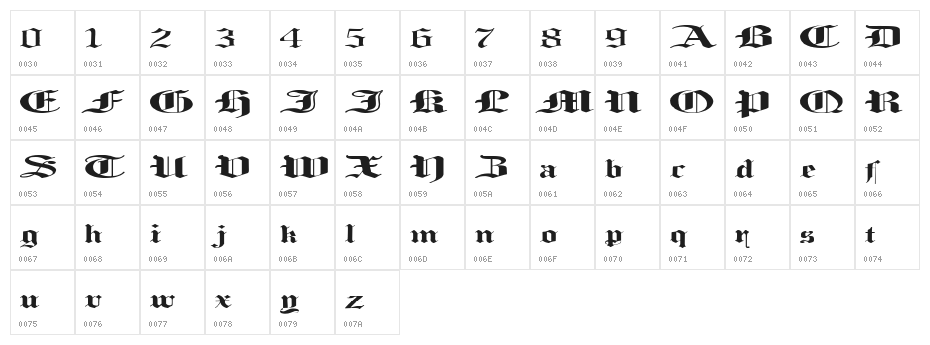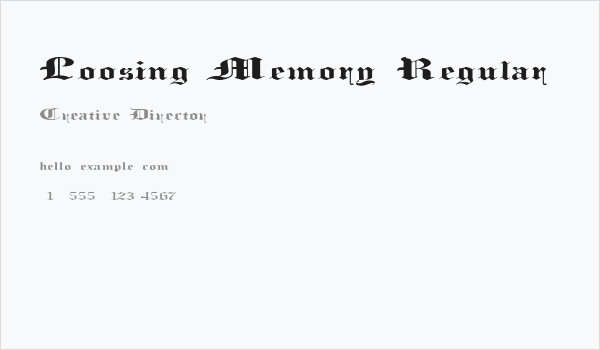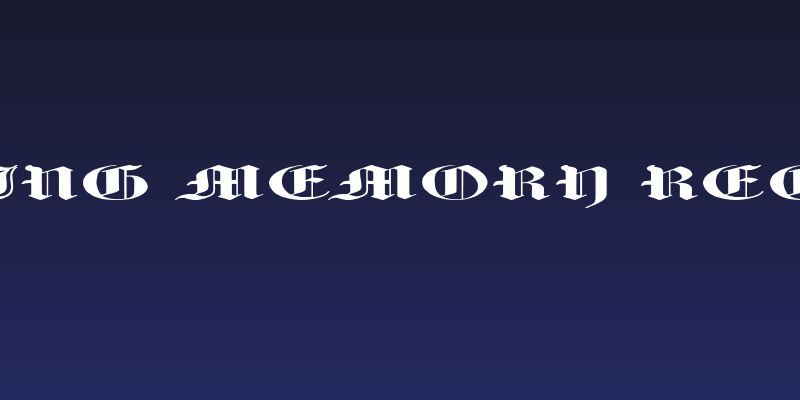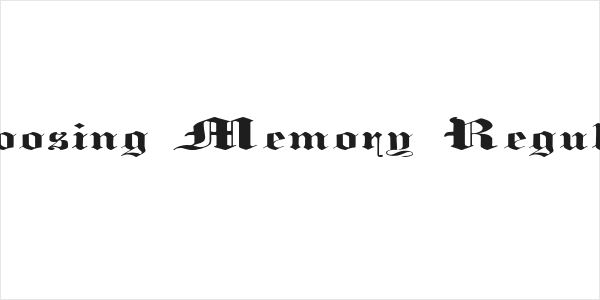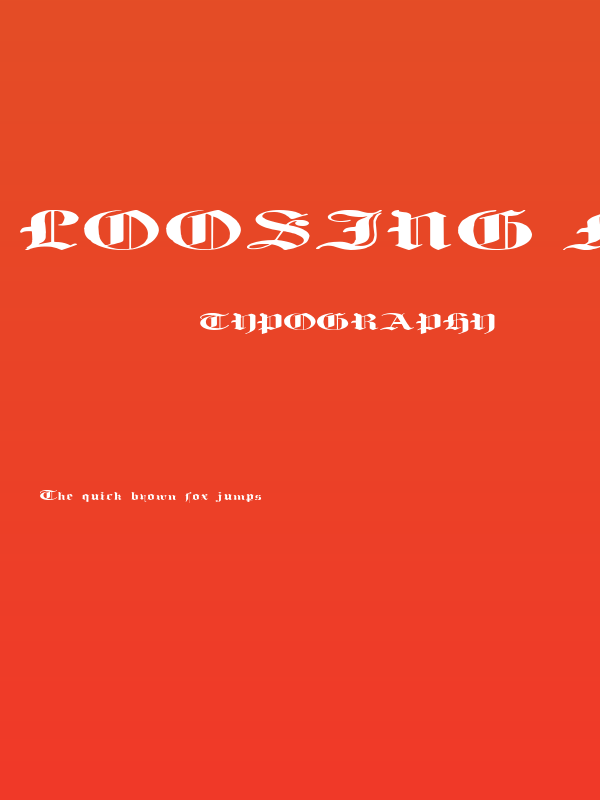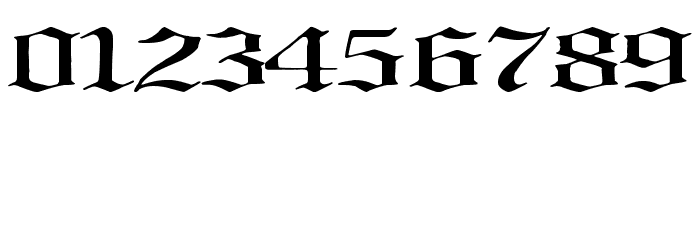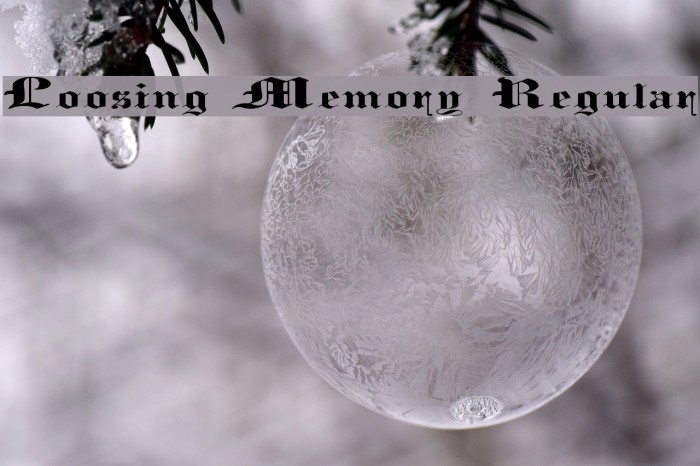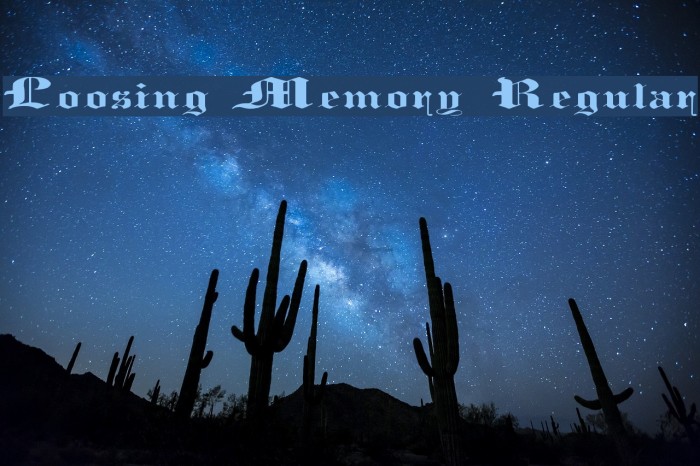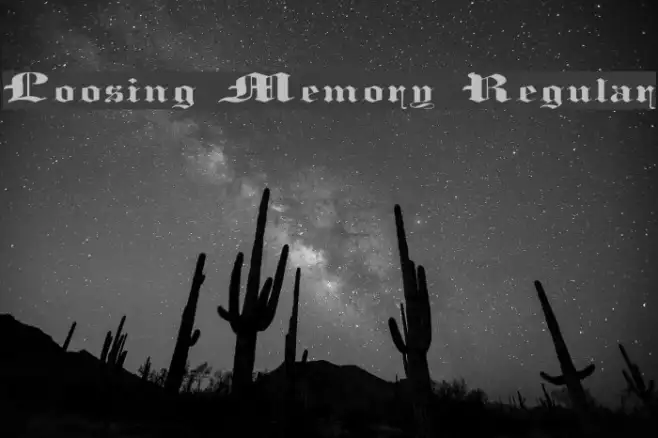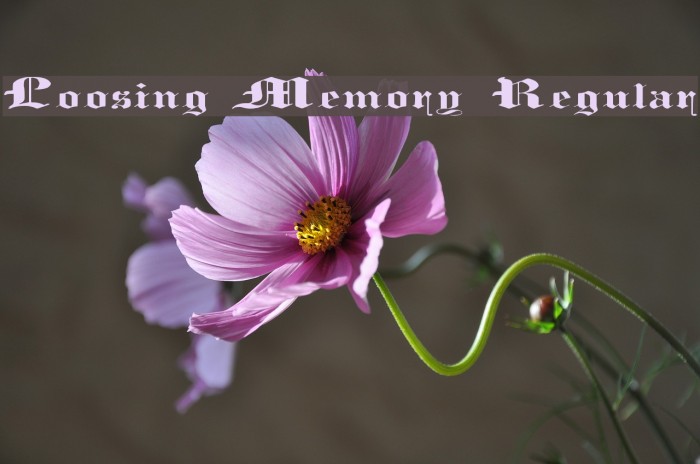
Loosing Memory Regular Font
Loosing Memory Regular Description
This font exhibits a classic blackletter style, characterized by its intricate and ornate letterforms. The uppercase letters are bold and commanding, with sharp angles and decorative flourishes that give them a medieval appearance. The lowercase letters maintain the same level of detail, featuring pointed arches and strong vertical strokes. The numerals are consistent with the overall style, presenting a traditional and historical feel. This font is perfect for projects that require a touch of elegance and tradition, such as certificates, invitations, or historical documents. Its unique style makes it stand out, capturing the essence of old-world typography.
| Use Case | Headlines, Logos, Decorative titles |
| Proposed Projects | Ideal for certificates, invitations, historical documents, and decorative titles. |